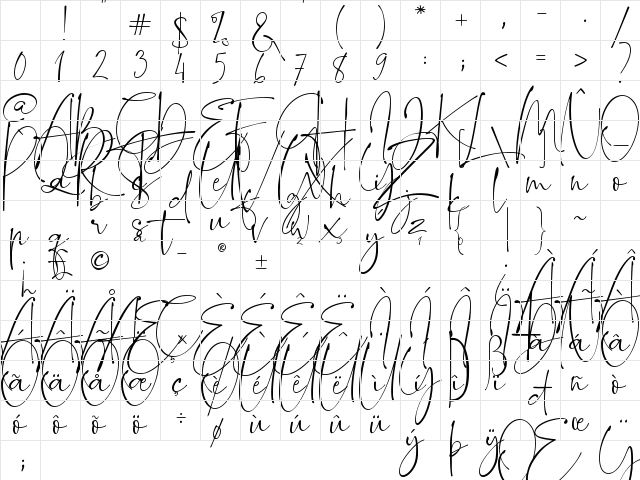
Complete Romantically Free For Personal Regular glyph index. Displaying only characters natively supported by Romantically Free For Personal Regular font.
Romantically Free For Personal is a composed and adaptable typeface that performs quietly and consistently across a wide range of design contexts.